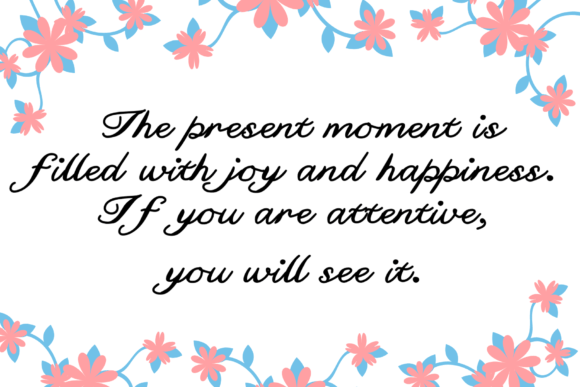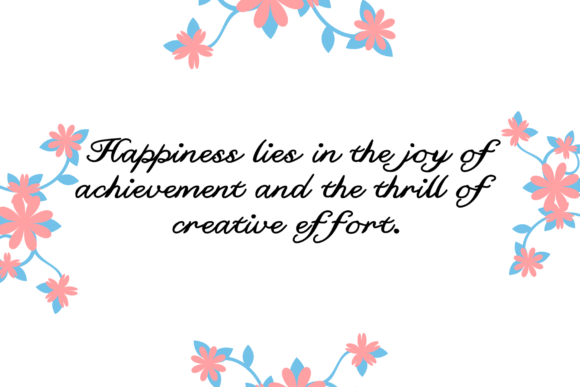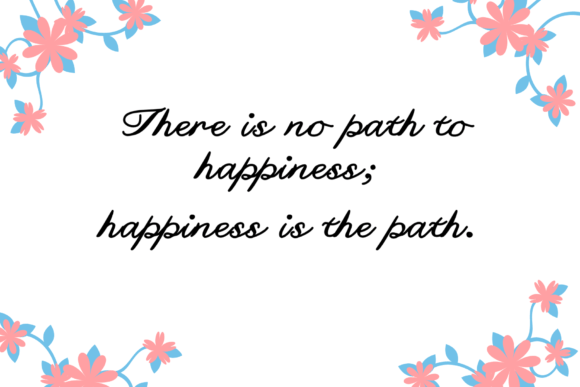
Americano Font
The “Americano” font presents itself as a script handwritten typeface, designed to enhance beautiful content associated with themes such as nature, love, and emotion. With its handcrafted charm, this font is poised to elevate your creative projects, adding a touch of warmth and authenticity.
The script style of “Americano” suggests a fluid and organic feel, making it suitable for conveying natural and emotional sentiments. Its handcrafted appearance adds a personal touch to the text, making it ideal for a range of creative applications where a touch of authenticity is desired.
Consider incorporating “Americano” into your creative endeavors to enhance the overall aesthetic. Whether you’re working on content related to nature, expressing love, or evoking emotions, this font can be a valuable addition. Its handwritten quality brings a sense of individuality to the text, making it well-suited for various design contexts.
Incorporate “Americano” into your design toolkit to add a genuine and heartfelt touch to your creative projects. Whether used for quotes, invitations, or any content that requires a personal and emotive feel, this script font aims to contribute to the beauty and authenticity of your design work.